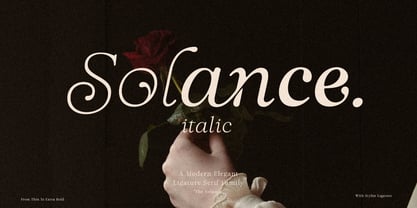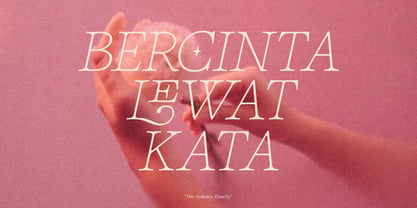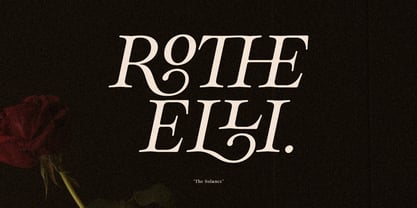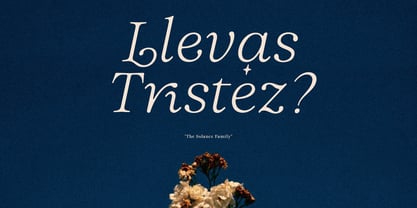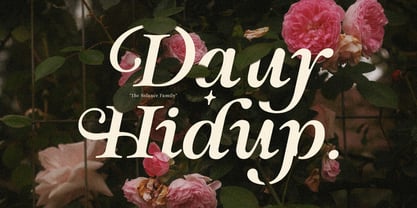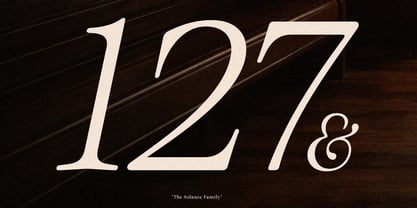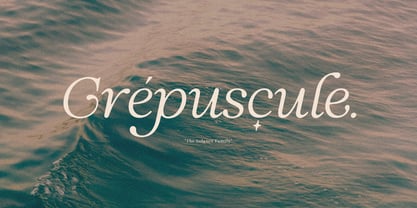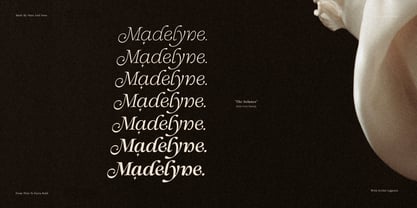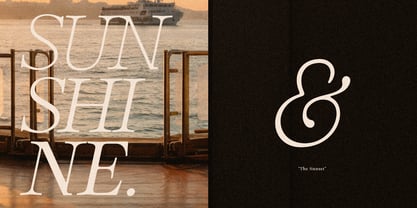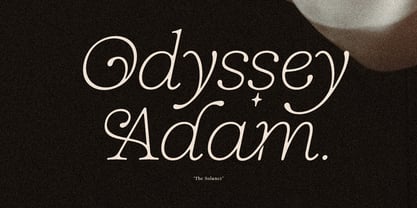
Solance Serif Italic
La familia tipográfica Solance Serif Italic fue diseñada por Angga Suwista y publicada por Sans And Sons. Solance Serif Italic contiene 7 estilos y opciones de paquete familiar. Más información sobre esta familia
The Solance Italic – Elegant Serif Font Family
The Solance Italic is an elegant serif font family designed to bring graceful movement and timeless sophistication to every design. Featuring beautifully crafted italic forms with refined contrast and flowing curves, it creates typography that feels expressive, luxurious, and effortlessly elegant.
With 7 carefully crafted weights, from Thin to ExtraBold, The Solance Italic offers the flexibility to create distinctive visual identities while maintaining harmony across every composition. Perfect for adding emphasis, elegance, and personality to both classic and modern designs.
Why You'll Love The Solance Italic
• Elegant italic serif with graceful, flowing letterforms
• 7 versatile weights from Thin to ExtraBold
• Refined contrast for a sophisticated and luxurious look
• Perfect for branding, editorials, logos, packaging, invitations, fashion, and beauty projects
• Ideal for both print and digital design
Whether you're crafting a luxury brand, designing an elegant editorial, or creating sophisticated packaging, The Solance Italic brings movement, refinement, and timeless character to every composition.